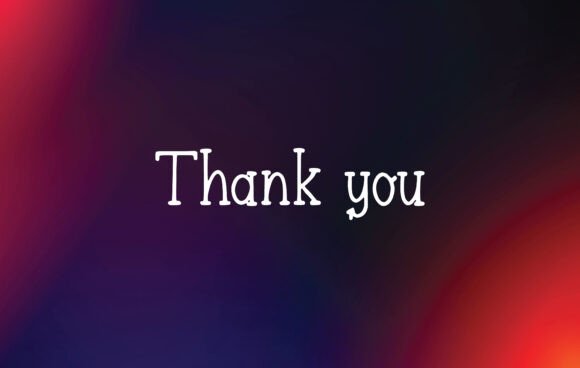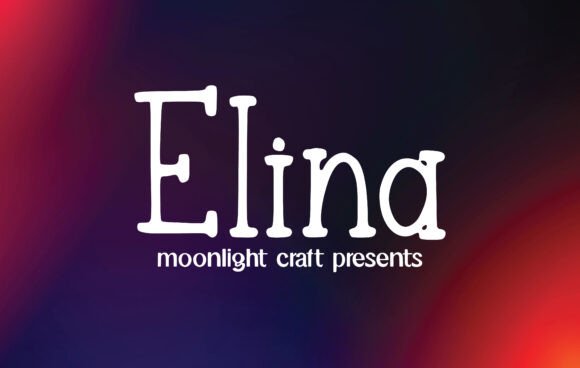
Introducing Elina Font: Elevate Your Creative Projects with Elegance
Are you a designer, crafty enthusiast, or simply someone who appreciates beautiful typography? Look no further than Elina Font, a stunning handwritten font that can take your creative ideas to new heights. With its lovely and beautiful design, Elina Font is the perfect choice for creating eye-catching logos, branding, and quotes that leave a lasting impression.
The Beauty of Elina Font
Elina Font boasts a unique, handcrafted design that exudes elegance and sophistication. Its flowing lines, delicate curves, and subtle imperfections give it a personal touch that’s hard to find in digital fonts. Whether you’re working on a logo, branding project, or social media graphics, Elina Font adds a touch of warmth and personality that resonates with audiences.
One of the best things about Elina Font is its versatility. Its beautiful design makes it suitable for a wide range of creative projects, from:
- Logos and Branding: Create a lasting impression with a custom logo that showcases your brand’s personality and values.
- Quotes and Typography: Add a touch of elegance to your inspirational quotes, posters, and social media graphics.
- Stationery and Invitations: Elevate your wedding invitations, business cards, and letterheads with a personal touch.
- Digital and Print Media: Use Elina Font in your blog posts, ebooks, and print materials to add a touch of sophistication.
Why Choose Elina Font?
So, what sets Elina Font apart from other fonts? Here are just a few reasons why designers and crafters love working with Elina:
- Unique Design: Elina Font’s handcrafted design ensures that your projects stand out from the crowd.
- High-Quality: Elina Font is crafted with attention to detail, ensuring that it looks great in any size or format.
- Time-Saving: With Elina Font, you can create stunning projects in no time, saving you hours of design work.
Tips for Using Elina Font
To get the most out of Elina Font, here are some tips to keep in mind:
- Experiment with Sizes: Elina Font looks great in a variety of sizes, so don’t be afraid to experiment to find the perfect fit for your project.
- Pair with Other Fonts: Combine Elina Font with other fonts to create a unique and visually appealing design.
- Play with Colors: Elina Font looks great in a range of colors, so try experimenting with different hues to add some personality to your project.